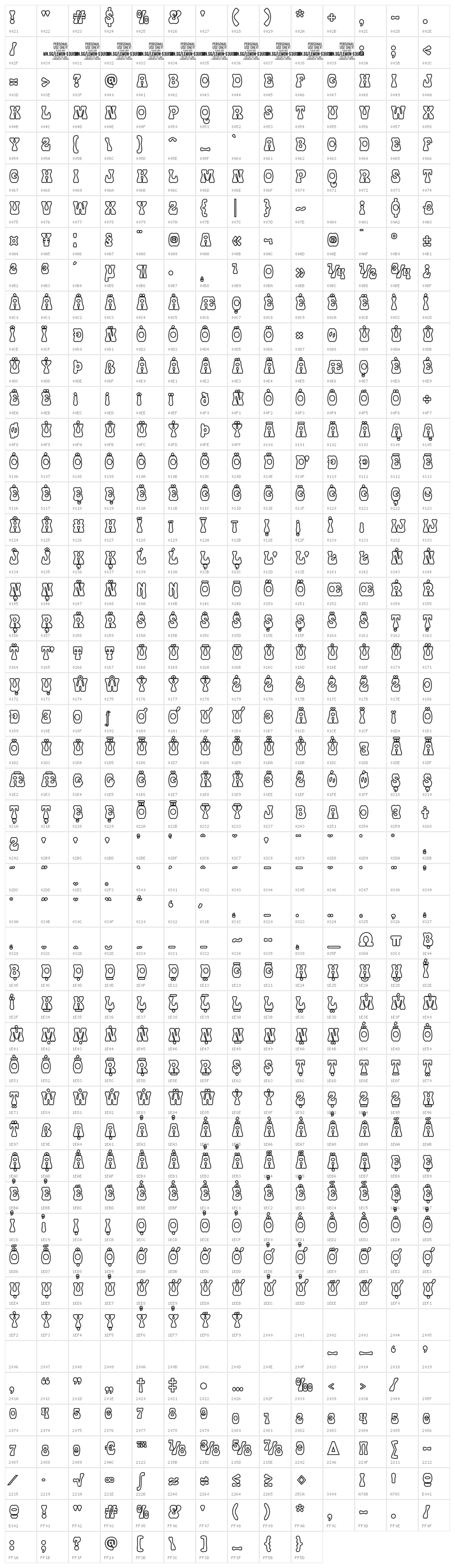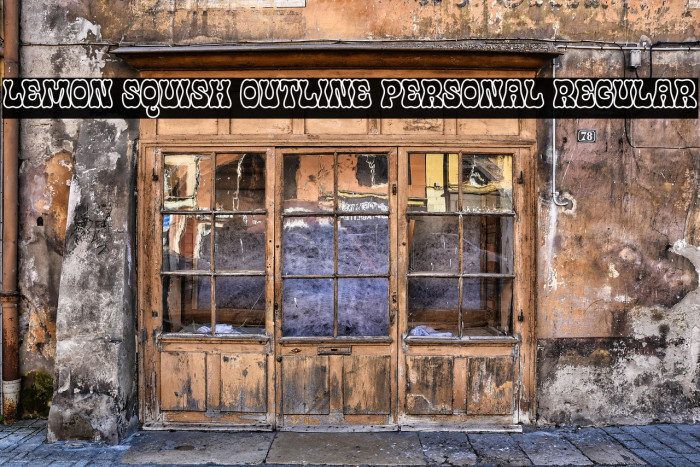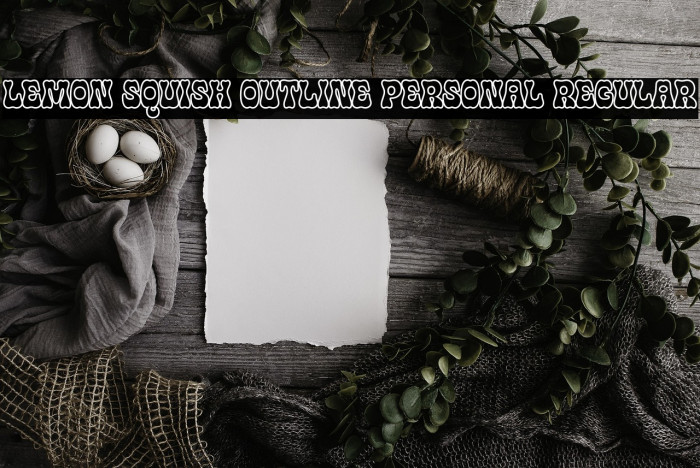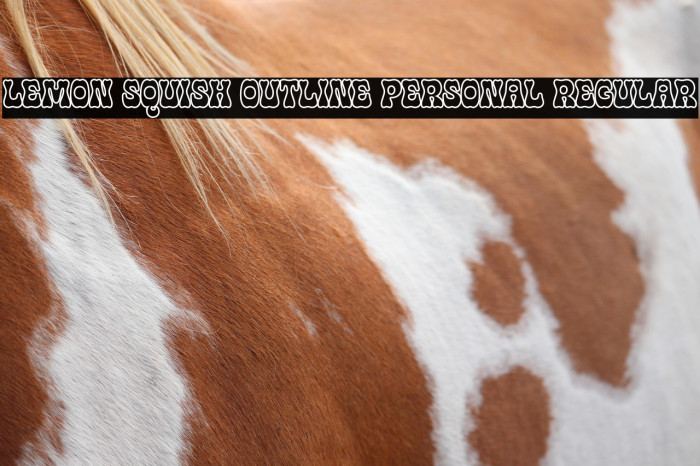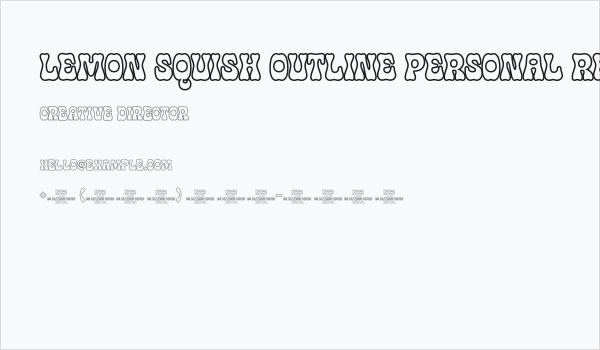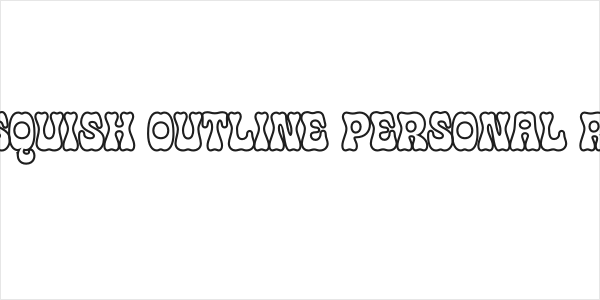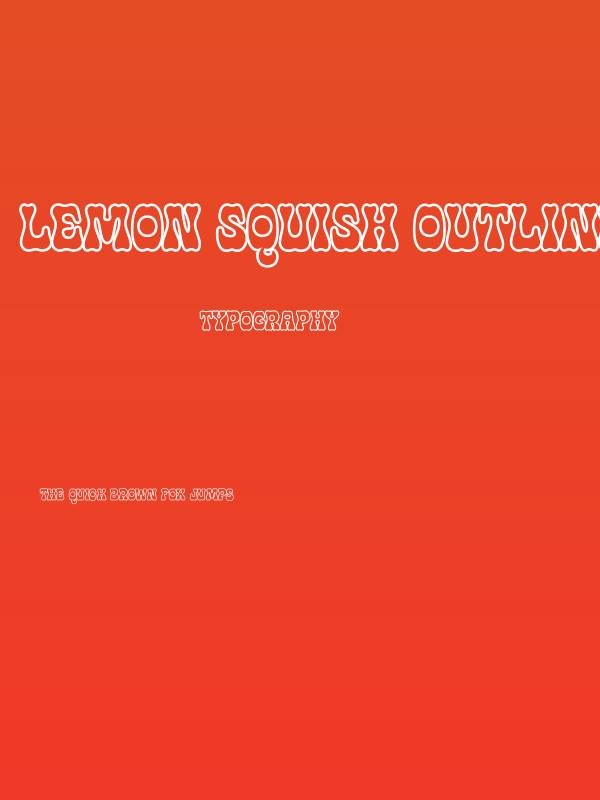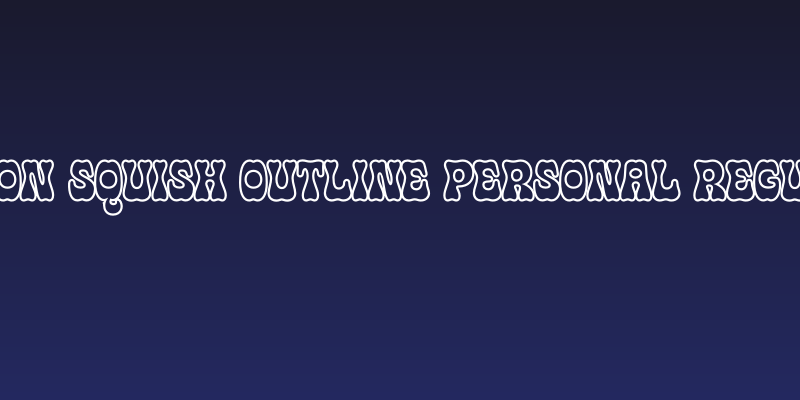
Lemon Squish Outline PERSONAL Regular Font
Lemon Squish Outline PERSONAL Regular Description
This playful and quirky font features an outline style with a bubbly, rounded appearance. Each character is designed with a thick, consistent outline that gives it a bold and eye-catching look. The letters have a whimsical, almost cartoonish quality, making them perfect for fun and informal designs. The font maintains uniformity in its outline thickness, ensuring readability while adding a unique flair. Its distinct style is suitable for projects that require a touch of creativity and humor.
Overall StylePlayful, Quirky
Proposed ProjectsIdeal for children's book covers, party invitations, playful branding, and creative posters.